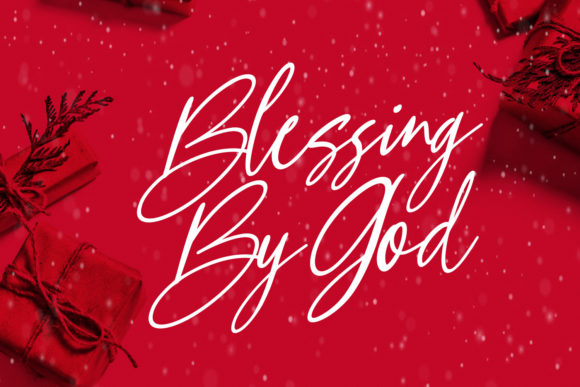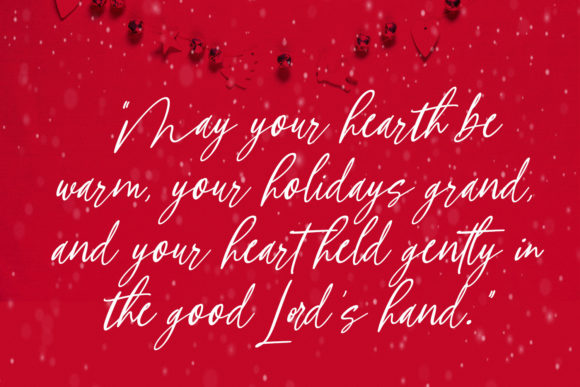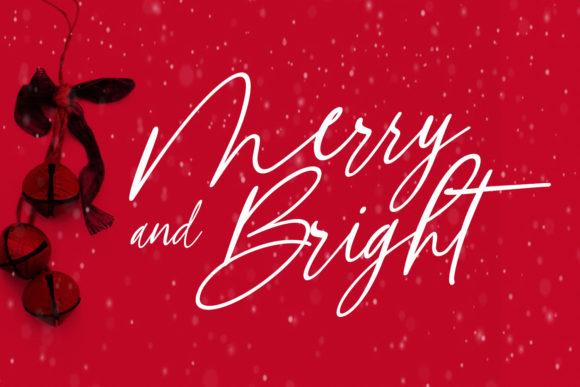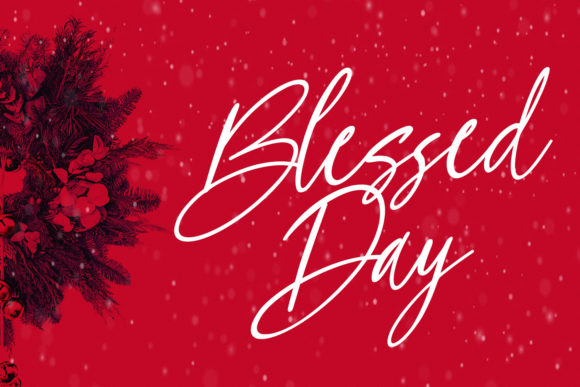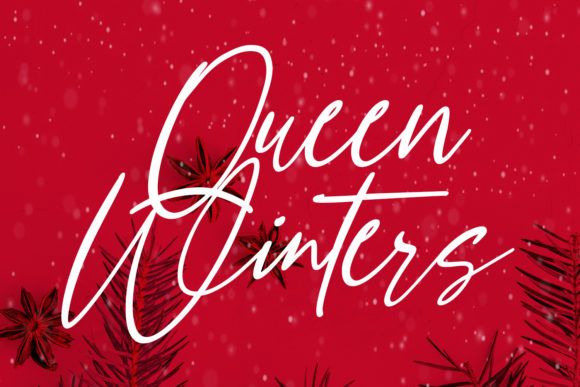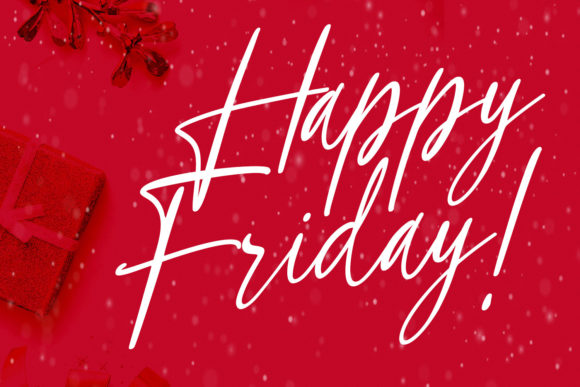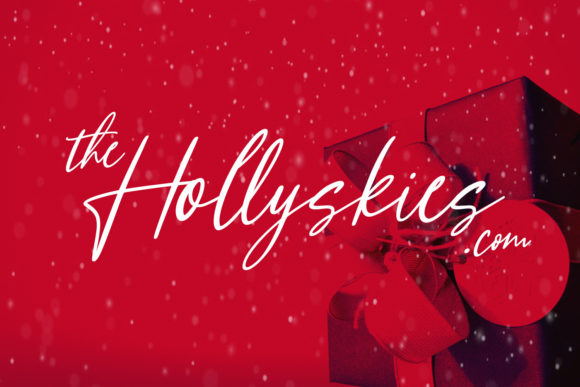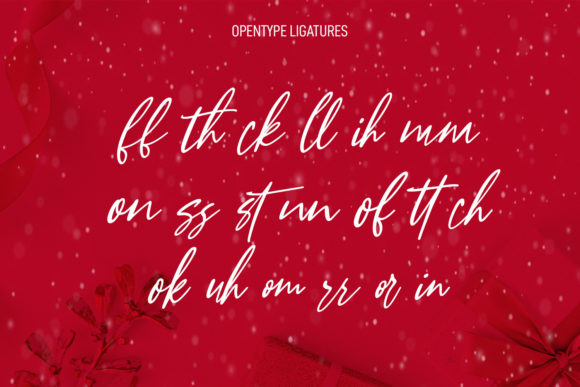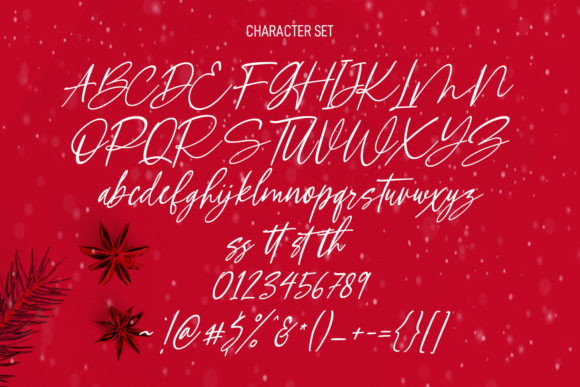
Another Christmas Script Font
About Another Christmas Script Font
Another Christmas is an annual Christmas script font with slanted style, clean mono-line stroke, fun character, and a bit of ligatures.
This font is great for logo design, Social media, Movie Titles, Books Titles, short text, even long text. Make a stunning work with Another Christmas font.